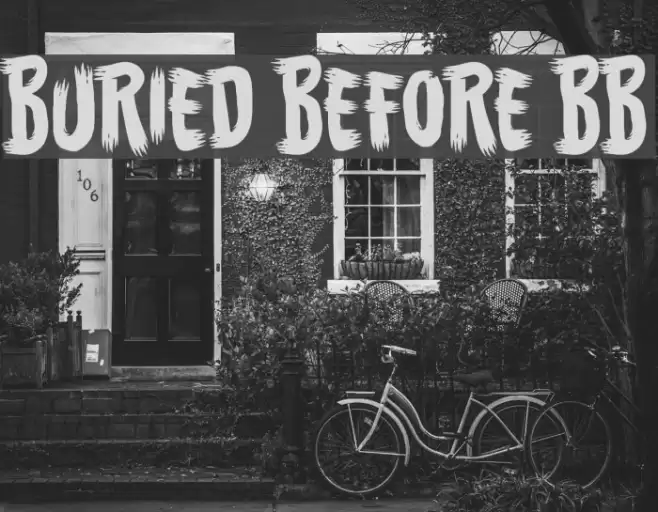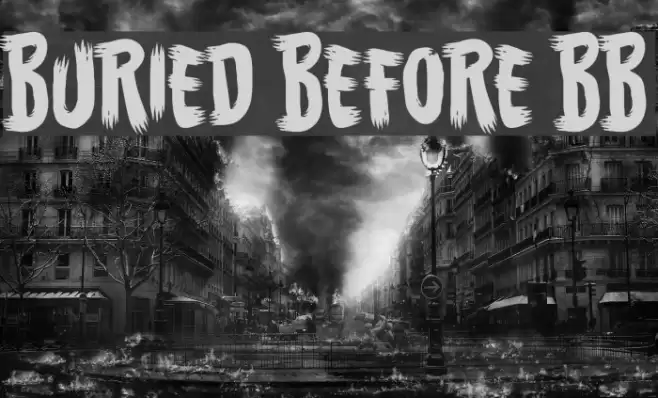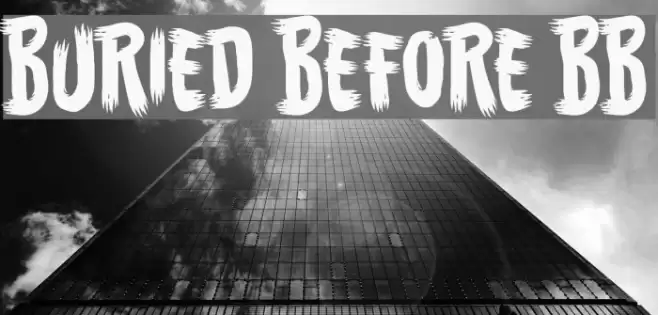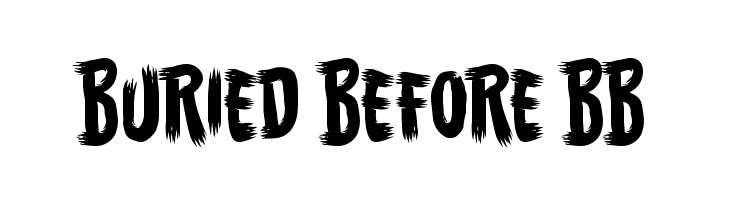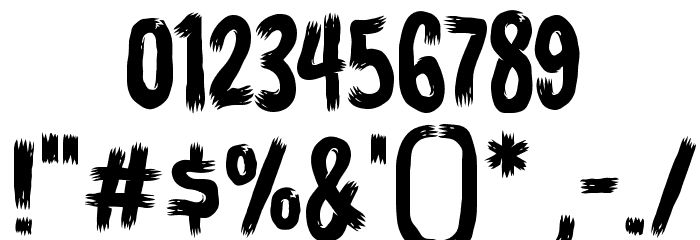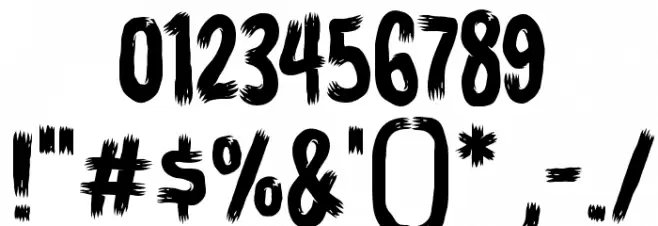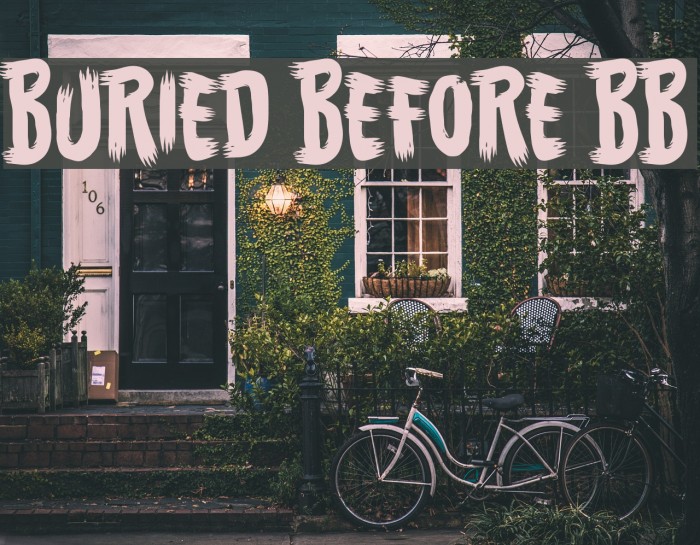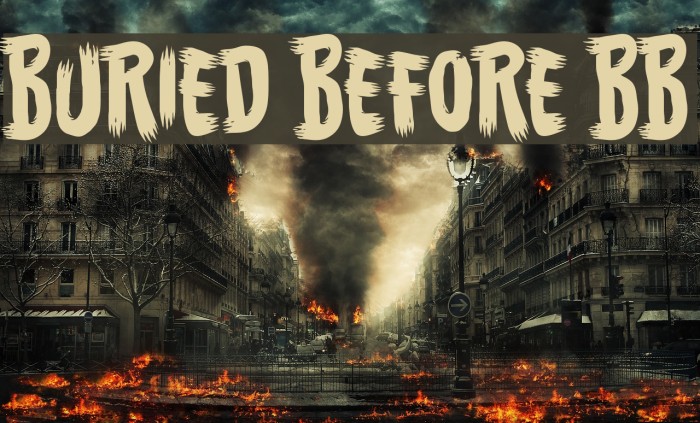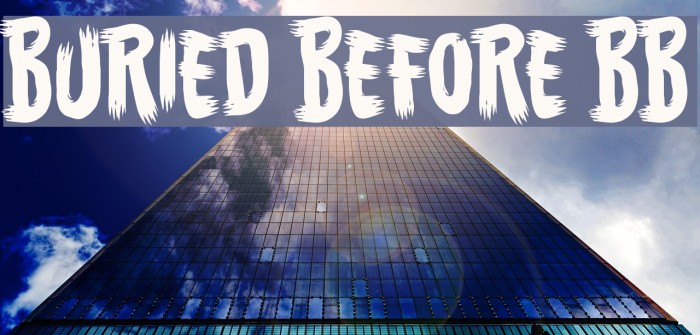
Buried Before BB Font
Buried Before BB Description
This font features a bold and dramatic style with a distressed, brush-like texture. The characters have an uneven, jagged appearance, giving them a raw and energetic feel. The uppercase and lowercase letters maintain a consistent height, while the numbers and special characters follow the same rugged design. The font's unique texture makes it stand out, adding a sense of movement and intensity to any design. It's perfect for projects that require a bold statement or an edgy, artistic touch.
A bold, distressed font with a brush-like texture and jagged edges from Uncategorized fonts.
- Proposed Projects: Ideal for music album covers, event posters, urban-themed designs, and edgy branding projects.